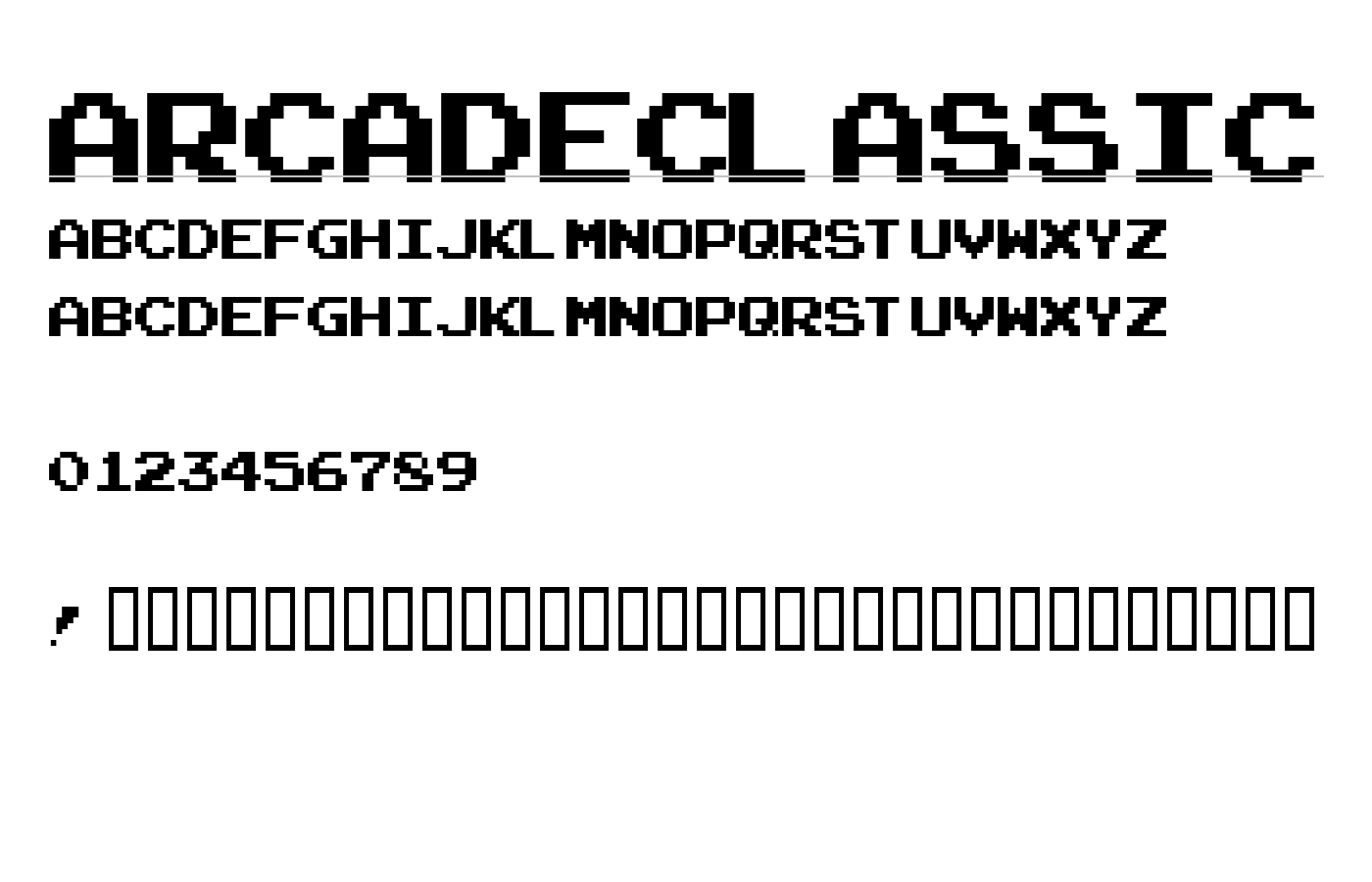
ArcadeClassic is a pixelated, monospace sans serif font that captures the retro feel of vintage video games with its blocky, pixel-perfect letterforms. It features consistent weight and a compact width, making it ideal for digital displays, gaming interfaces, and nostalgic branding. This font’s playful yet technical style works best in headlines, logos, and designs seeking a fun, classic arcade vibe.
ArcadeClassic Font
About ArcadeClassic Font